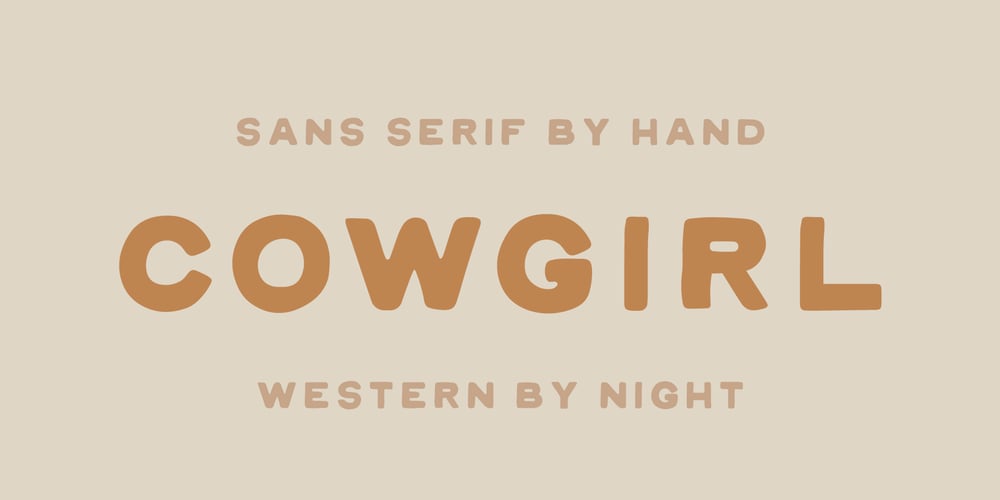
Cowgirl
Cowgirl font
Cowgirl Font Family was designed by Meg Burk and published by By Meg Burk. Cowgirl contains 1 styles and family package options. An uppercase font that has versatile character. Got a story to tell? Cowgirl can help you tell it. Includes western-themed vector illustrations handmade by Meg Burk.I grew up spending almost every family vacation as a road trip across the southwestern US. In these adventures, I fell in love with learning about the nature around us; deserts, mountains, plains, piñon trees, rainbow trout, black bears, eagles, and more. I fell into freezing cold white water rapids, explored long-abandoned cliff dwellings, camped under the Milky Way, saw old cave markings, stone markings, preserved art, and read many a many old map legends. These memories are visceral and the inspiration that I get from them permeates my every day. Take a piece of these stories with you and use them in your designs, too.Handmade, meant to last a lifetime and inspire others for decades to come.